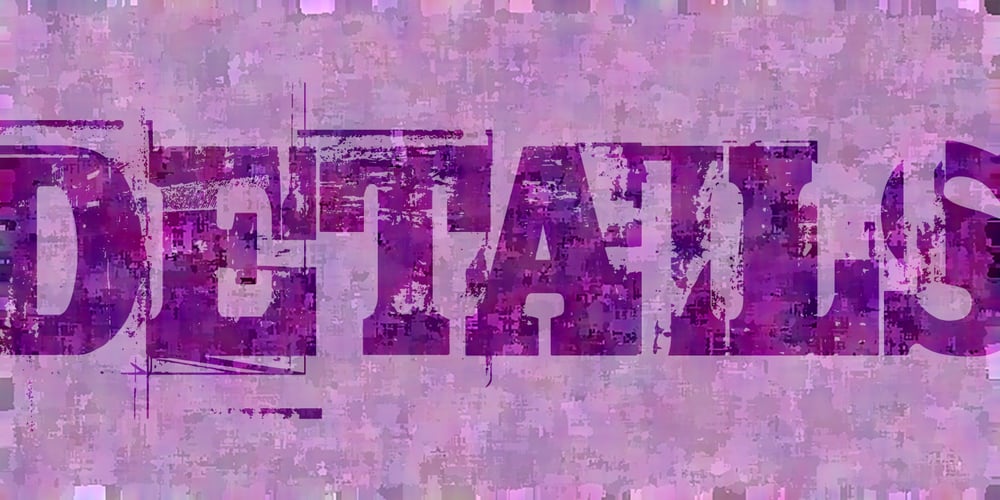
Trashed Pro Font Family was designed by Roger S. Nelsson, Guillaume Séguin and published by CheapProFonts. Trashed Pro contains 1 styles and family package options. An extremely detailed grunge typeface! Although it has the fewest characters of the CheapProFonts library (no need for typographic niceties in such a rough headline font 😉 ) the font files are the largest from us yet: the OpenType file is a whopping 1.7MB! ALL fonts from CheapProFonts have very extensive language support: They contain some unusual diacritic letters (some of which are contained in the Latin Extended-B Unicode block) supporting: Cornish, Filipino (Tagalog), Guarani, Luxembourgian, Malagasy, Romanian, Ulithian and Welsh. They also contain all glyphs in the Latin Extended-A Unicode block (which among others cover the Central European and Baltic areas) supporting: Afrikaans, Belarusian (Lacinka), Bosnian, Catalan, Chichewa, Croatian, Czech, Dutch, Esperanto, Greenlandic, Hungarian, Kashubian, Kurdish (Kurmanji), Latvian, Lithuanian, Maltese, Maori, Polish, Saami (Inari), Saami (North), Serbian (latin), Slovak(ian), Slovene, Sorbian (Lower), Sorbian (Upper), Turkish and Turkmen. And they of course contain all the usual “western” glyphs supporting: Albanian, Basque, Breton, Chamorro, Danish, Estonian, Faroese, Finnish, French, Frisian, Galican, German, Icelandic, Indonesian, Irish (Gaelic), Italian, Northern Sotho, Norwegian, Occitan, Portuguese, Rhaeto-Romance, Sami (Lule), Sami (South), Scots (Gaelic), Spanish, Swedish, Tswana, Walloon and Yapese.